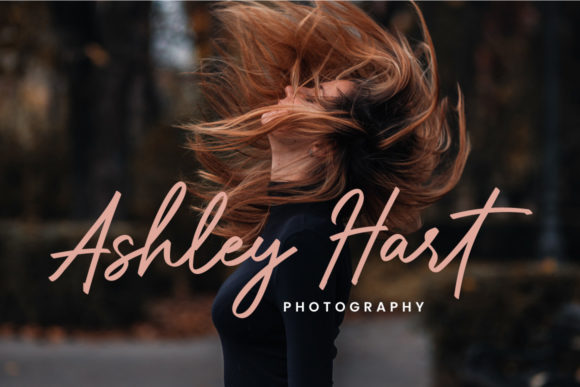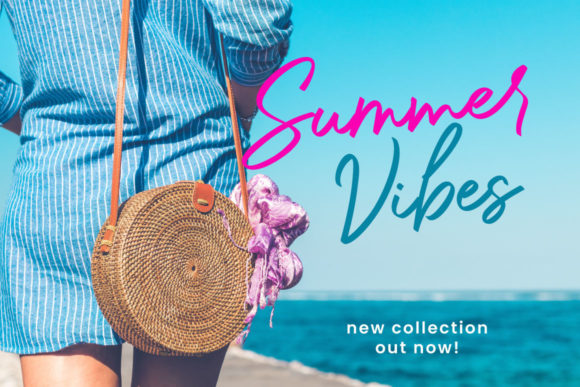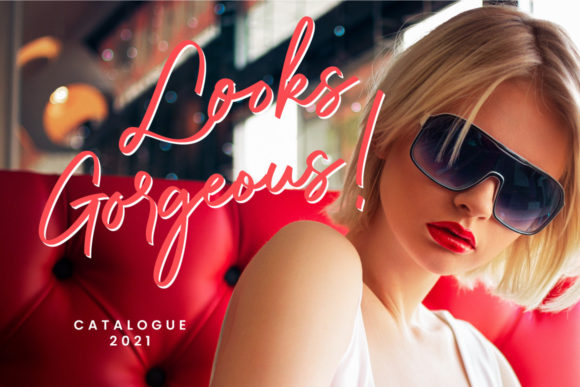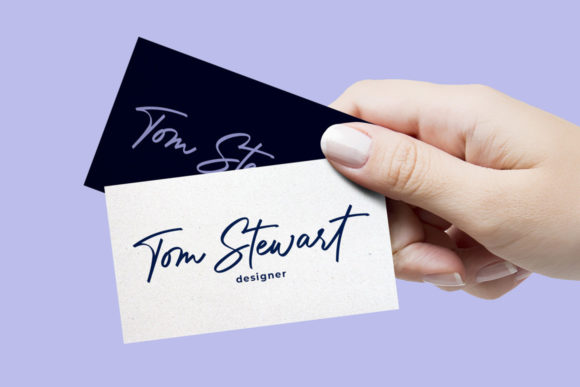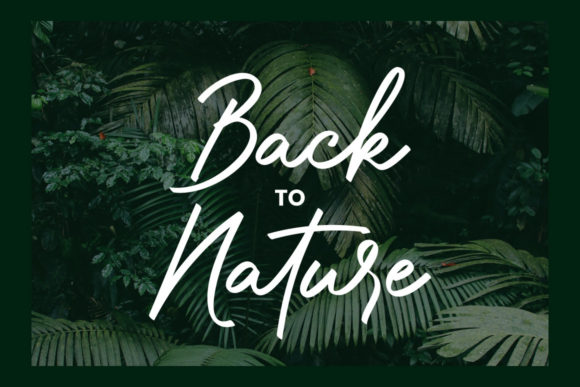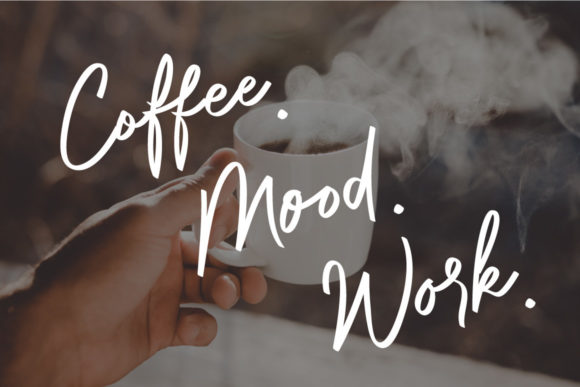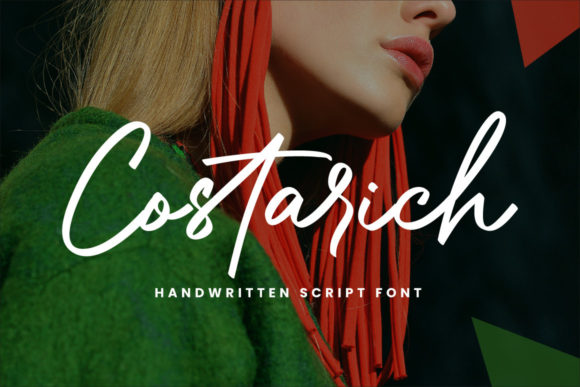
Introducing Costarich Font: Elevate Your Designs with Elegance and Sophistication
Are you a designer or crafter looking for a font that exudes luxury, elegance, and sophistication? Look no further than Costarich Font, a stunning handwritten font that is sure to become a favorite in your collection. With its classy calligraphic influences and contemporary feel, Costarich Font is the perfect choice for a wide range of design projects.
What Makes Costarich Font So Special?
Costarich Font is a masterfully designed font that boasts a unique blend of traditional and modern elements. Its exquisite handwritten style is characterized by flowing lines, delicate curves, and a sense of movement, giving it a dynamic and expressive feel. Whether you’re working on a branding project, packaging design, or digital content, Costarich Font is sure to add a touch of sophistication and glamour.
Key Features of Costarich Font
- Classy Calligraphic Influences: Costarich Font maintains its classy calligraphic influences while feeling contemporary and fresh. This unique blend of traditional and modern elements makes it perfect for designers who want to add a touch of elegance to their work.
- Handwritten Style: The font’s handwritten style gives it a personal and approachable feel, making it ideal for designs that require a human touch.
- Contemporary and Fresh: Despite its calligraphic influences, Costarich Font feels contemporary and fresh, making it perfect for modern designs that require a unique and stylish font.
Use Cases for Costarich Font
Costarich Font is a versatile font that can be used in a wide range of design projects, including:
- Branding and Logo Design: Use Costarich Font to create a luxurious and sophisticated brand identity that will help your business stand out.
- Packaging Design: Add a touch of elegance to your packaging designs with Costarich Font, perfect for high-end products and premium brands.
- Digital Content: Use Costarich Font to create engaging and stylish digital content, such as social media graphics, blog posts, and email newsletters.
- Stationery and Invitations: Create beautiful and elegant stationery and invitations with Costarich Font, perfect for weddings, events, and formal occasions.
Tips for Using Costarich Font
To get the most out of Costarich Font, here are a few tips to keep in mind:
- Experiment with Different Sizes: Costarich Font looks great in a variety of sizes, so don’t be afraid to experiment and find the perfect size for your design.
- Pair with Other Fonts: Costarich Font pairs well with other fonts, so try combining it with a sans-serif font for a stylish and modern look.
- Use Swashes and Glyphs: Take advantage of the font’s PUA encoding and use the swashes and glyphs to add a touch of elegance and sophistication to your design.
Costarich Font is a stunning handwritten font that is sure to become a favorite in your collection. With its classy calligraphic influences, contemporary feel, and PUA encoding, it’s the perfect choice for designers and crafters who want to add a touch of elegance and sophistication to their work. Whether you’re working on a branding project, packaging design, or digital content, Costarich Font is sure to deliver.